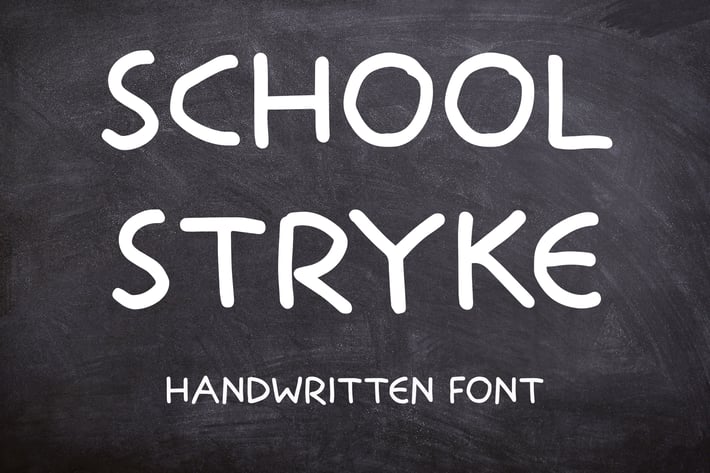
School Stryke - Handwritten font
Introducing the new fun font for kids and playful handwritten marker font. handmade wide letters fun font for crafts and kids projects.
basic latin (english) letters only